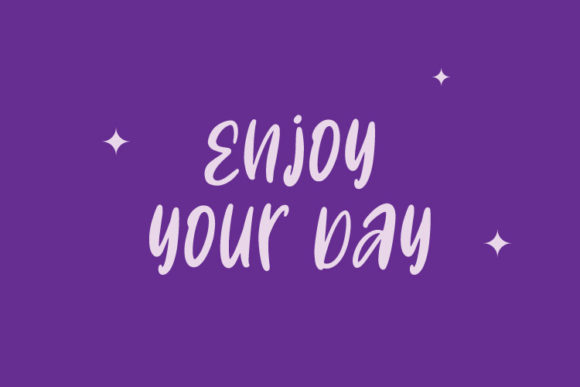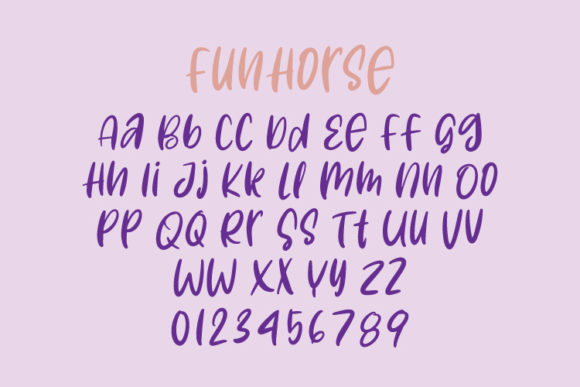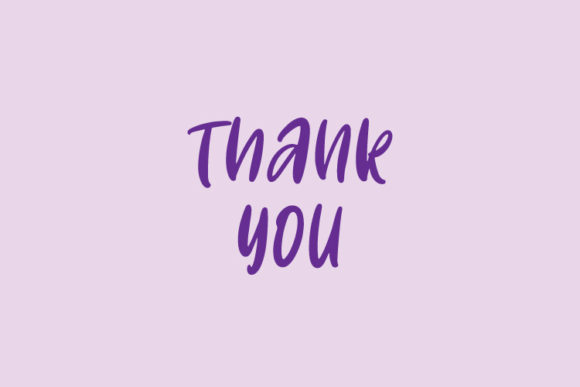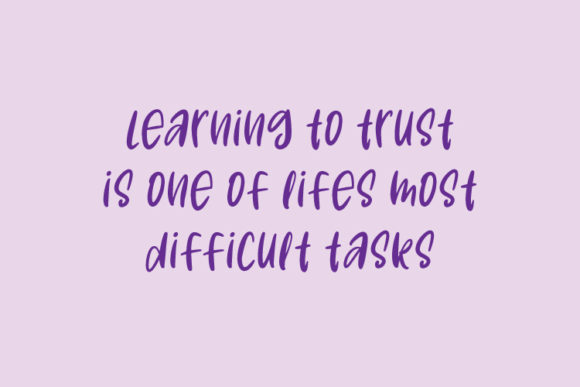
The Joy of Fonts: How Fun Horse Became My Go-To for Cute and Fun Designs
I still remember the frustration of working on a project, hours spent crafting the perfect whiteboard quote, only to realize that the font I was using just wasn’t cutting it. It was too formal, too boring, and completely missed the mark on the playful vibe I was going for. My client was counting on me to deliver something engaging and fun, and I was on the verge of a designer’s worst nightmare: a font emergency! 😩
That’s when I stumbled upon **Fun Horse**, a casual and paint-brushed display font that would change the game for me. Its authentic look and feel added a personal touch to my designs, making them instantly more relatable and engaging. In this article, I’m excited to share my love for Fun Horse, its features, and how you can make the most of it in your own design projects.
Here’s what makes Fun Horse a standout in my font collection:
- ✨ Cute and playful vibe: Fun Horse nails the casual, fun feel that’s perfect for whiteboard quotes, teaching materials, and more.
- ✅ Authentic look and feel: The paint-brushed texture gives it a personal, hand-crafted touch that’s hard to replicate with other fonts.
- 💡 Versatility: While it’s designed for display use, Fun Horse can add a unique flair to a variety of design projects, from posters to social media graphics.
A few things to keep in mind:
- 🤔 Legibility at small sizes: Like many display fonts, Fun Horse can get a bit tricky to read at smaller sizes. It’s best used for headlines or short bursts of text.
- ⚠️ Limited use in formal contexts: This font is clearly designed for fun and casual applications. It might not be the best fit for more formal or professional projects.
One of the best things about Fun Horse is its support for OpenType features. This means you can access a range of glyphs and stylistic alternates to really customize your text. For example:
- Glyphs: Many modern fonts, including Fun Horse, come with extra glyphs like ligatures, ornaments, or even different variations of letters. These can add a lot of personality to your designs.
The Story Behind Fun Horse
While the true origins of Fun Horse might be shrouded in mystery, it’s easy to imagine a designer sitting down with a paintbrush and paper, looking to create a font that captures the essence of fun and playfulness. The result is a font that’s not just a tool, but a way to convey a feeling – a sense of joy and creativity that can elevate any design project.
| What is the best use for Fun Horse? | Fun Horse is perfect for cute and fun themed designs, such as whiteboard quotes, teaching materials, posters, and social media graphics. |